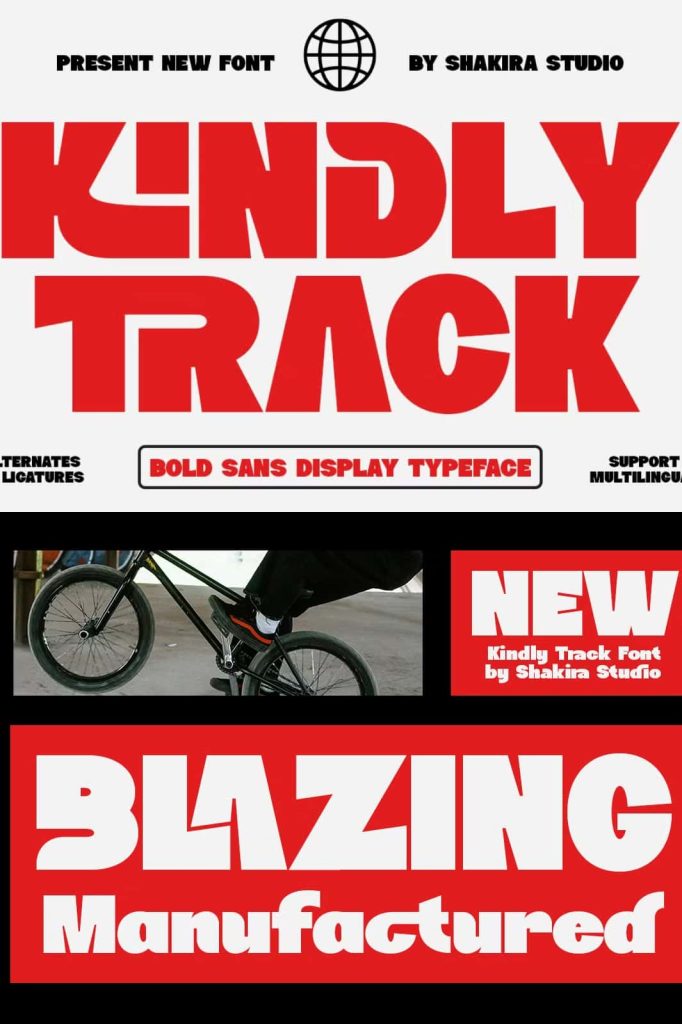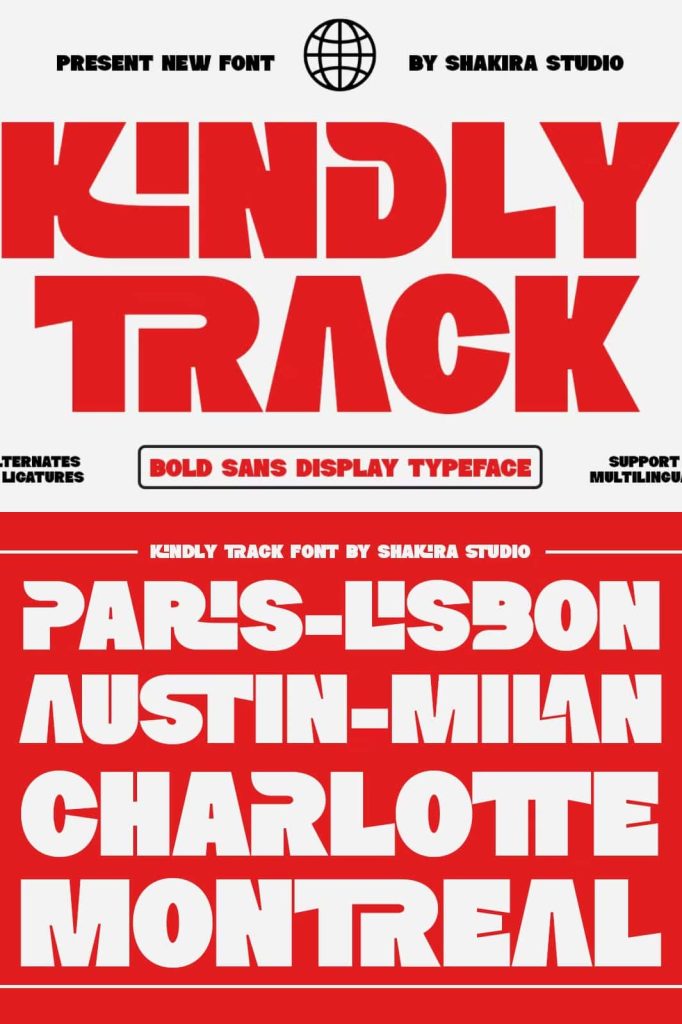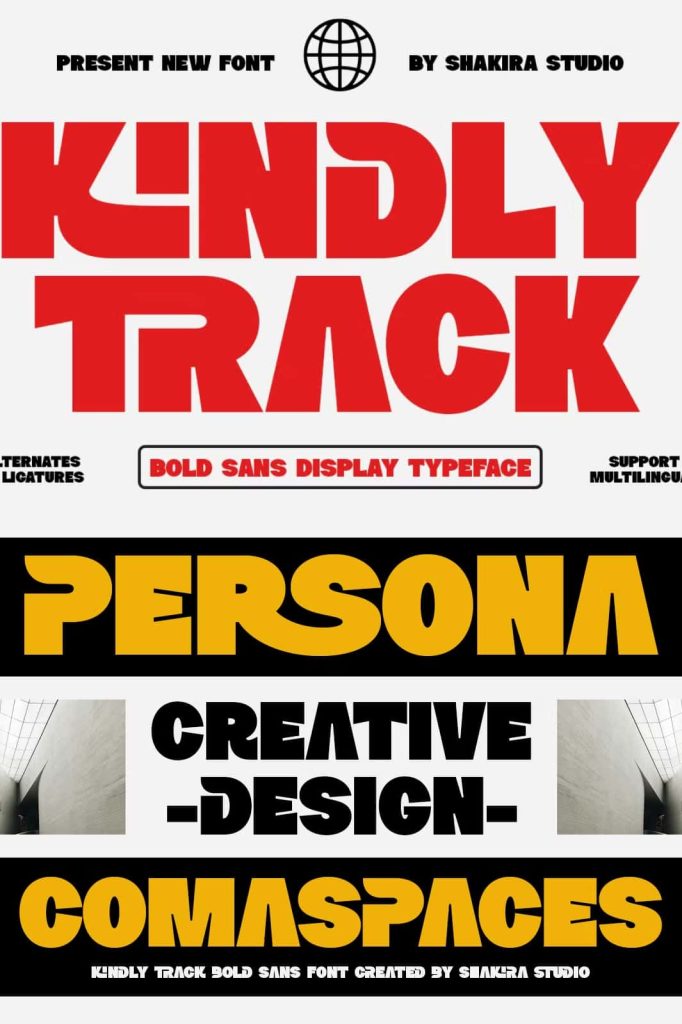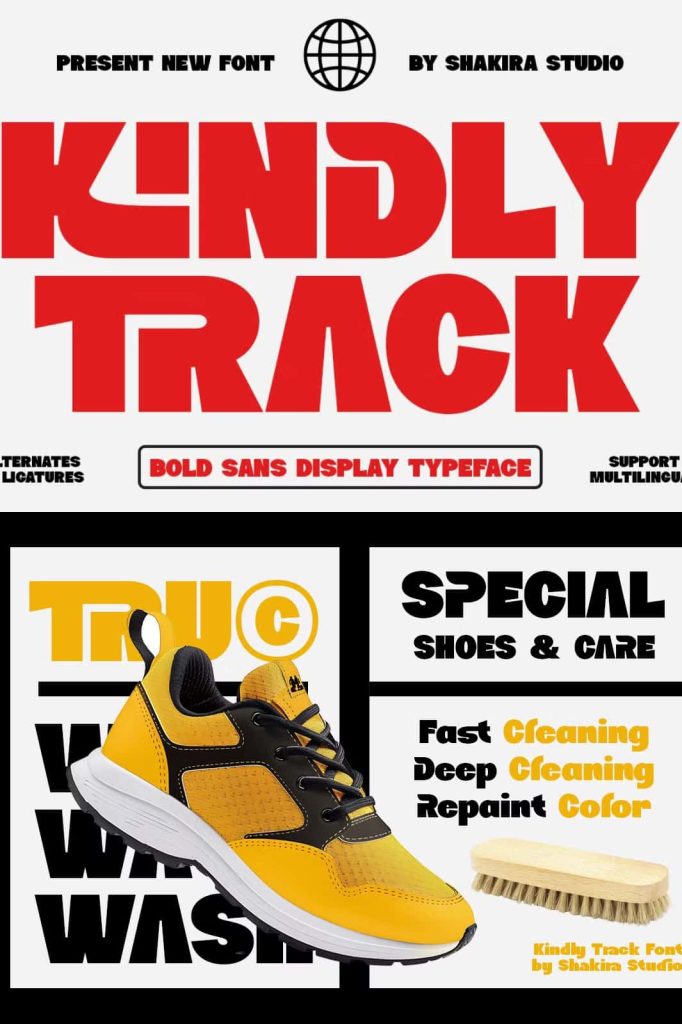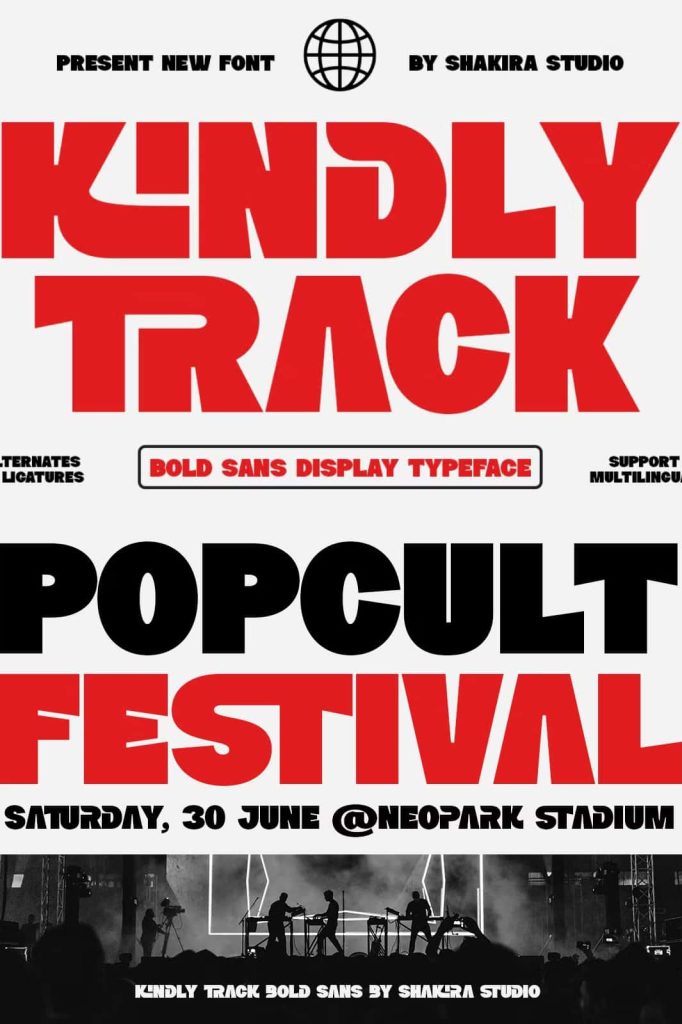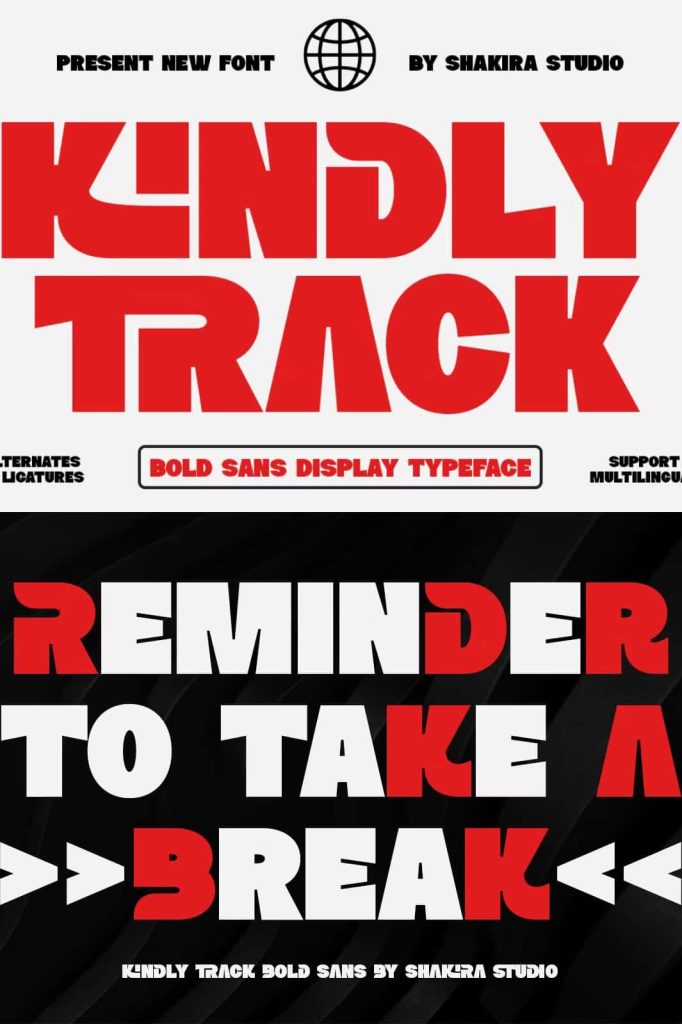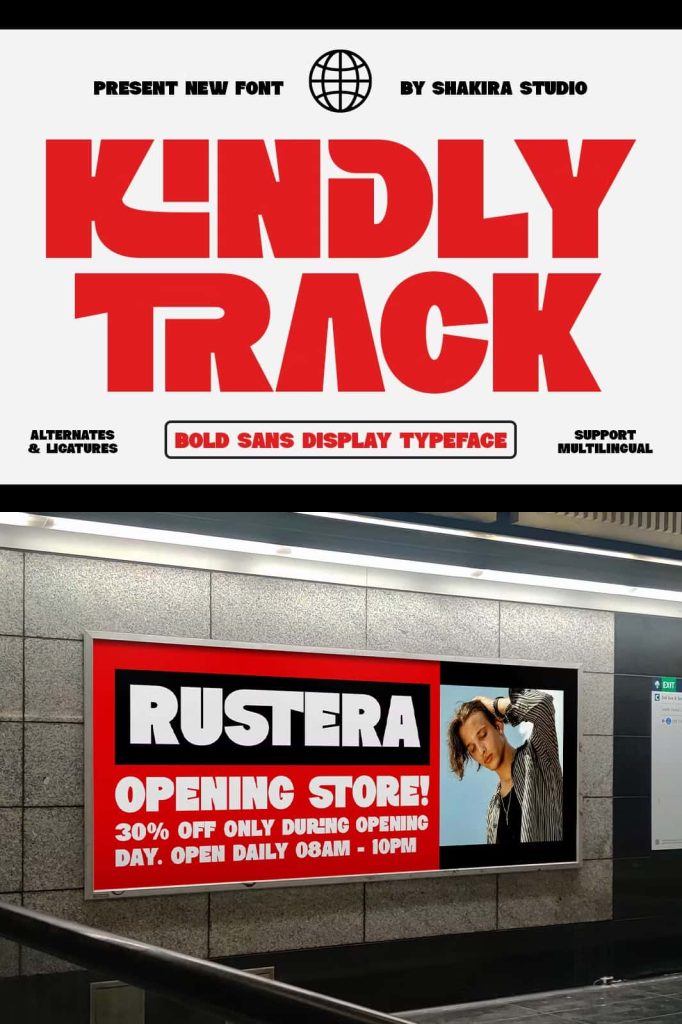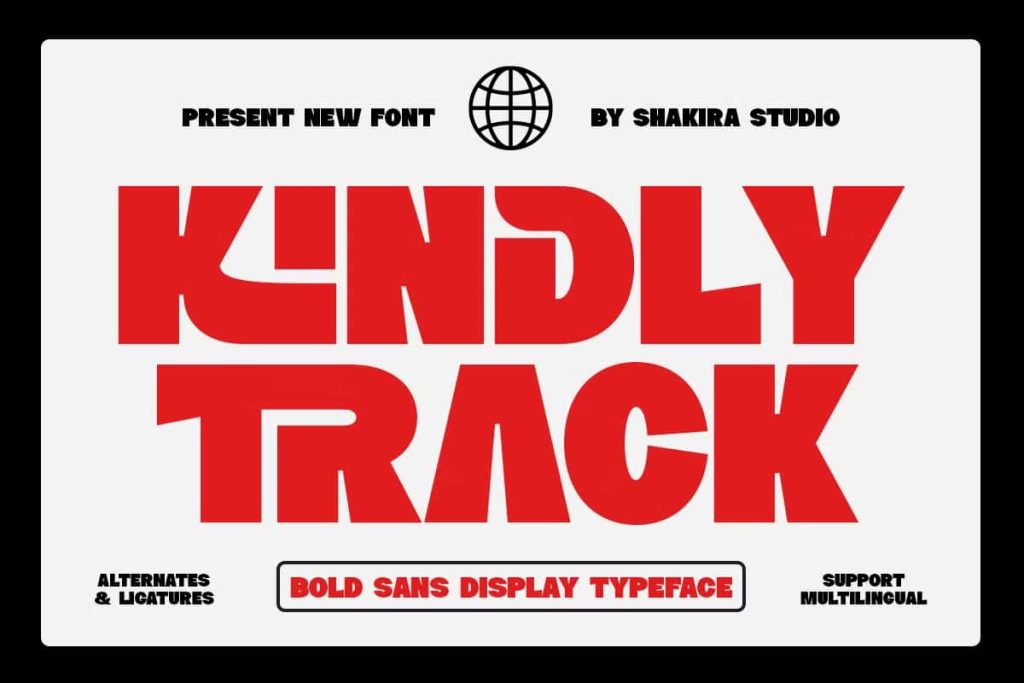
Kindly Track – Bold Typeface
Kindly Track is a bold sans serif display font that combines strength and sophistication. Its thick, impactful characters create a professional and luxurious feel, making it perfect for eye-catching designs, from branding to posters, headlines, and logos.